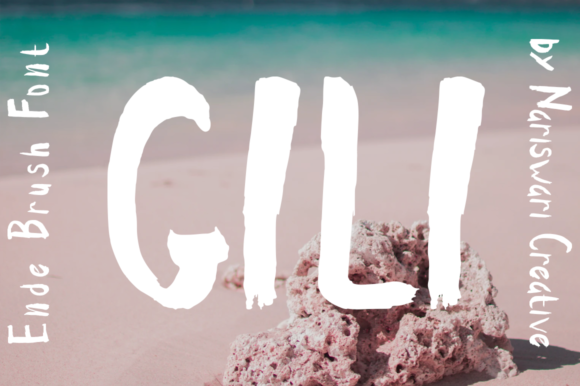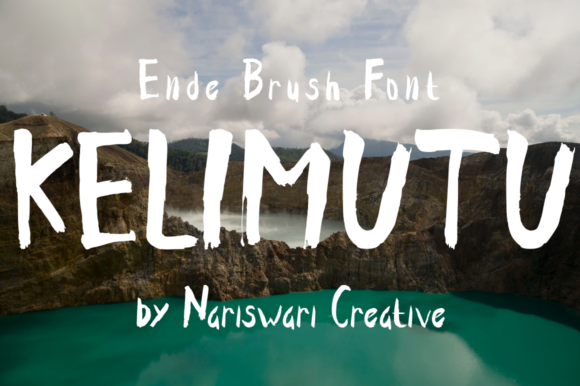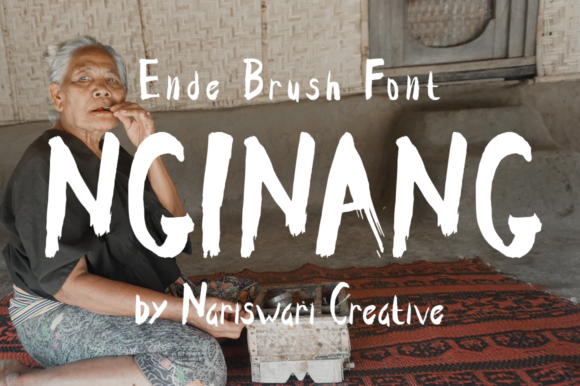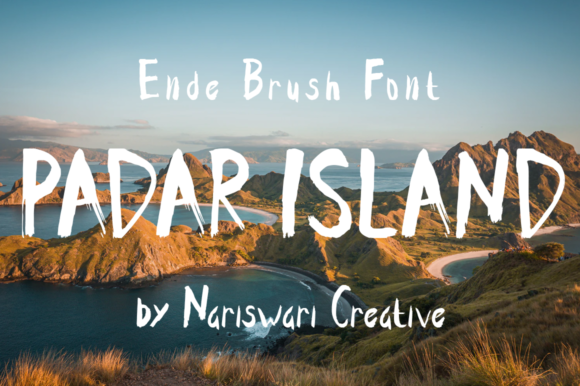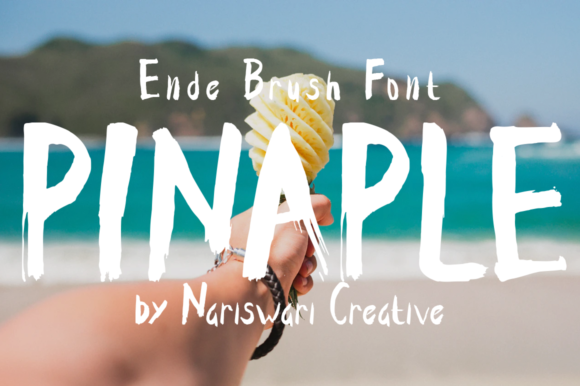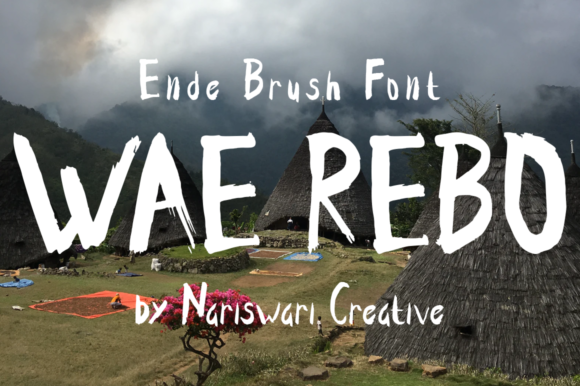
Ende Font
About Ende Font
Ende is a unique and interesting display font. A little bit quirky, this font looks incredibly adept on a wide variety of contexts!